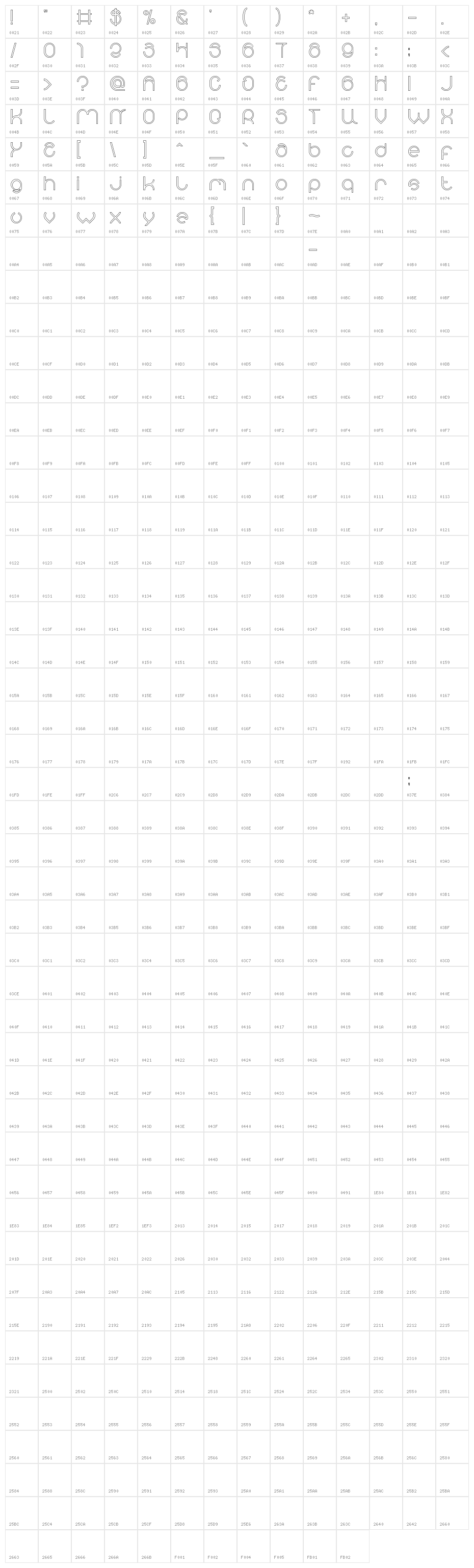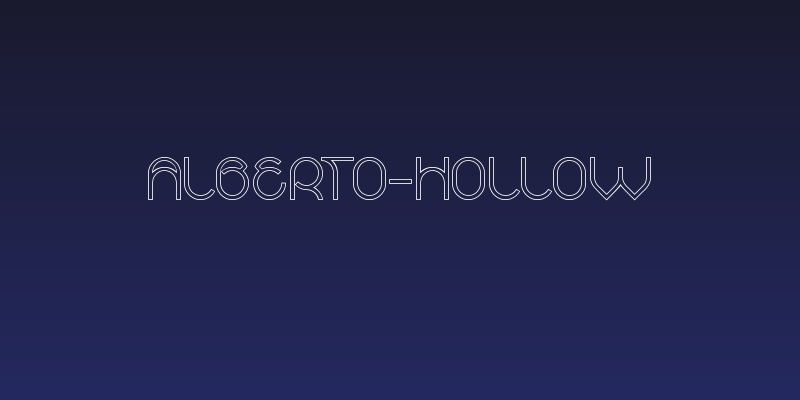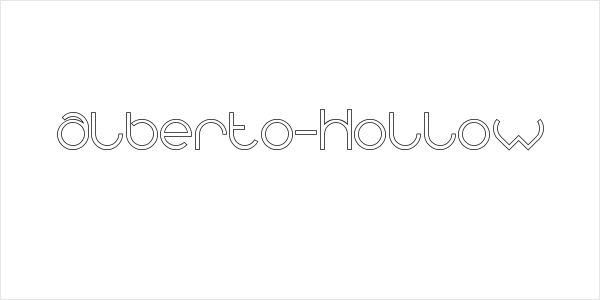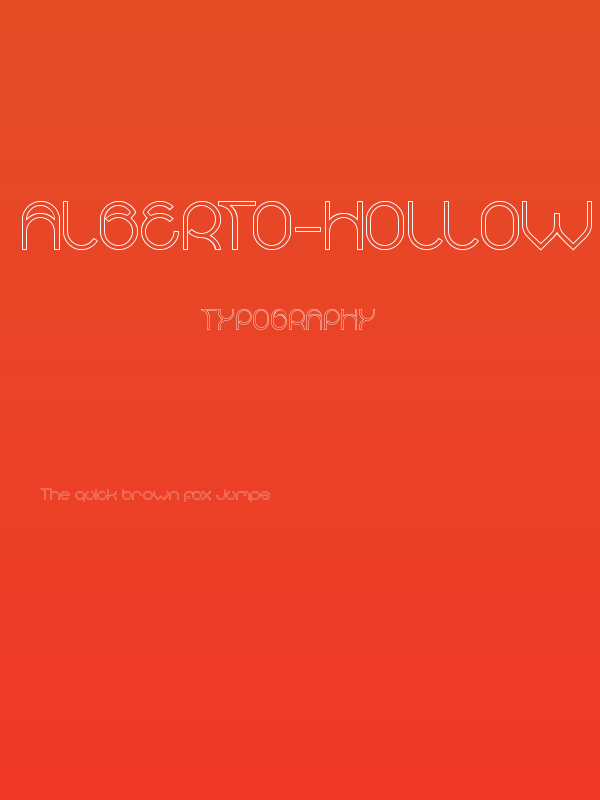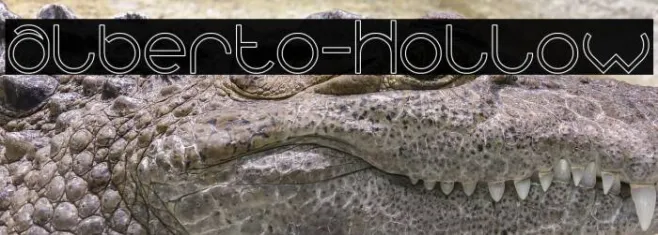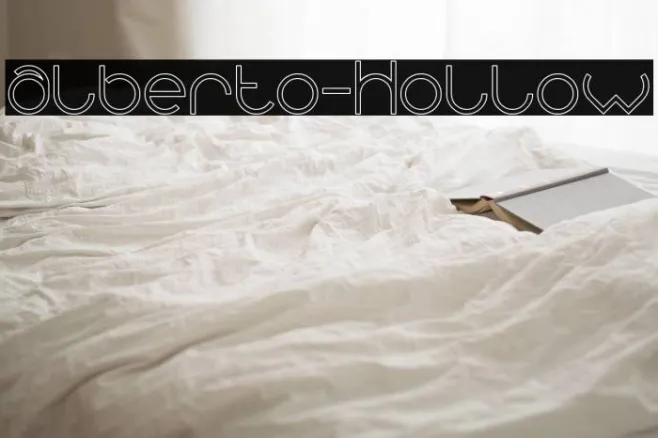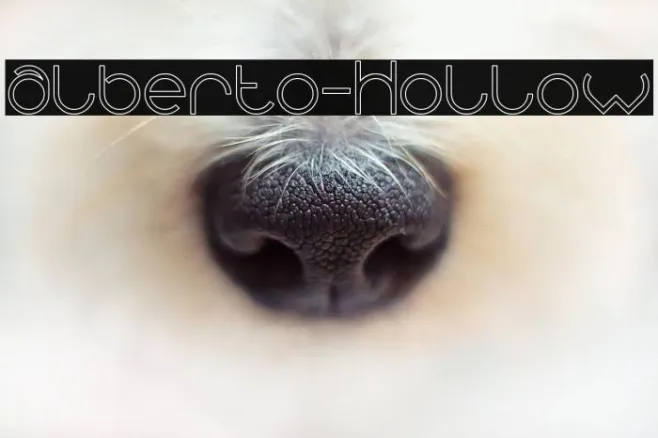
alberto-Hollow Font
alberto-Hollow Description
This font features a unique hollow design with a modern and futuristic aesthetic. The characters are constructed with a consistent line weight, creating an open and airy feel. The geometric shapes and rounded edges give it a sleek and contemporary look, making it stand out in any design. The uppercase and lowercase letters maintain a uniform style, while the numerals and special characters integrate seamlessly with the overall design. Its distinct appearance makes it suitable for creative and bold projects.
| Proposed Projects | Ideal for branding, posters, album covers, and digital media where a modern and unique look is desired. |